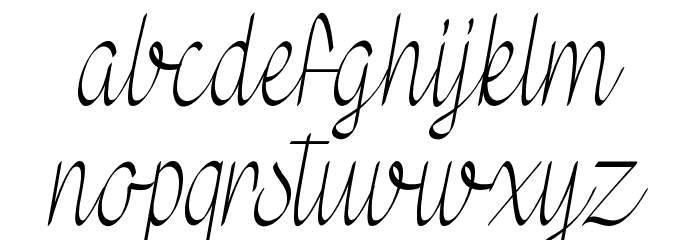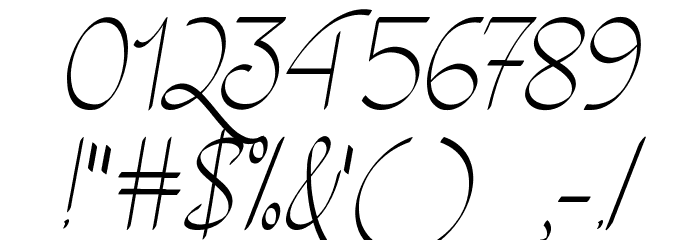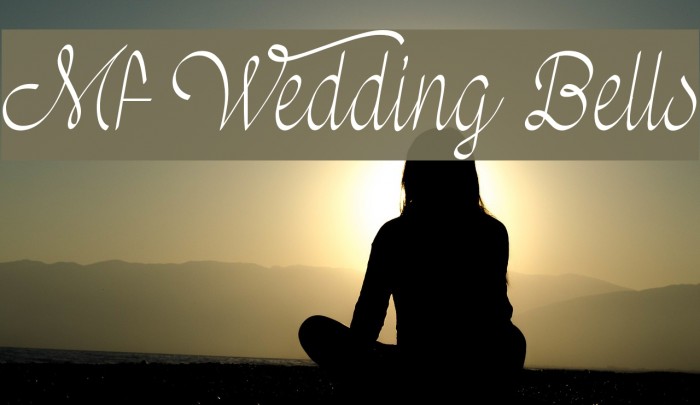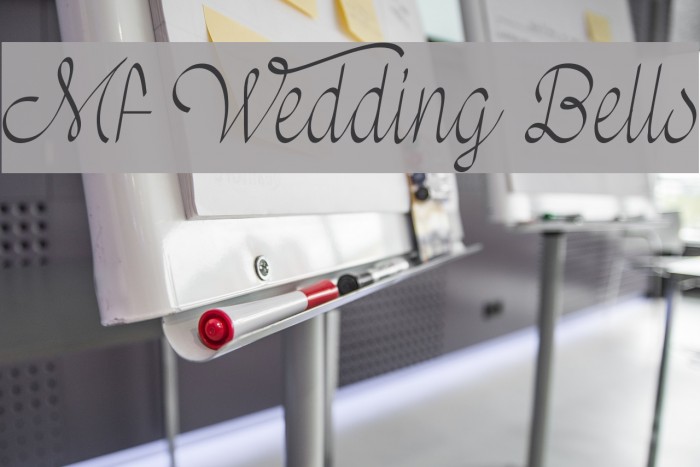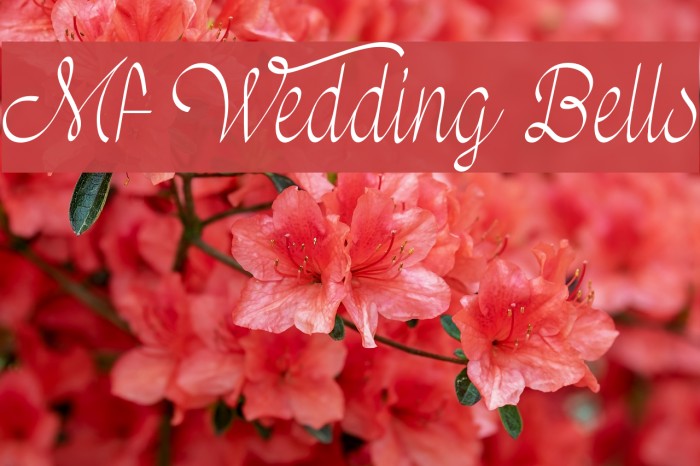
Mf Wedding Bells Font
This elegant script font features a flowing, cursive style with delicate loops and flourishes. The uppercase letters are characterized by their sweeping curves and intricate details, while the lowercase letters maintain a graceful and fluid appearance. The numerals are designed with a similar flair, offering a cohesive look across all characters. Special characters are thoughtfully crafted to match the overall aesthetic, making this font ideal for formal and decorative applications. The thin strokes and high contrast between thick and thin lines give it a sophisticated and refined look, perfect for adding a touch of elegance to any project.
An elegant script font with flowing, cursive style and delicate flourishes.
- Proposed Projects: Wedding invitations, elegant branding, formal event programs, decorative signage.
- Overall Style: Elegant, Decorative
- Use Case: Invitations, Branding, Decorative Text